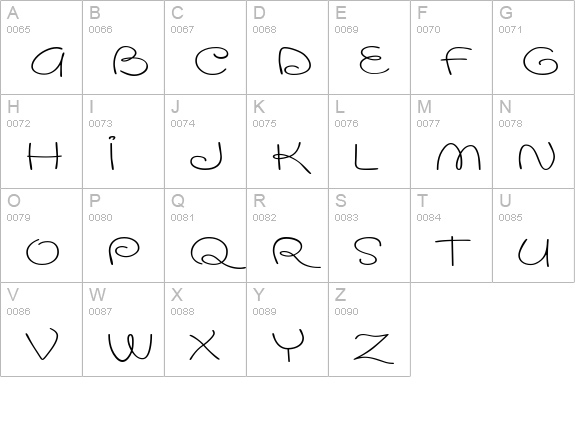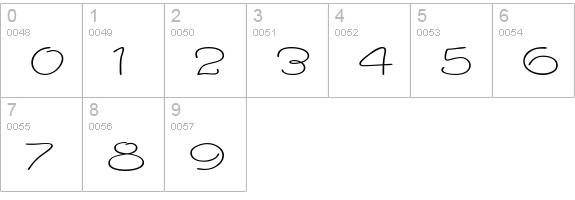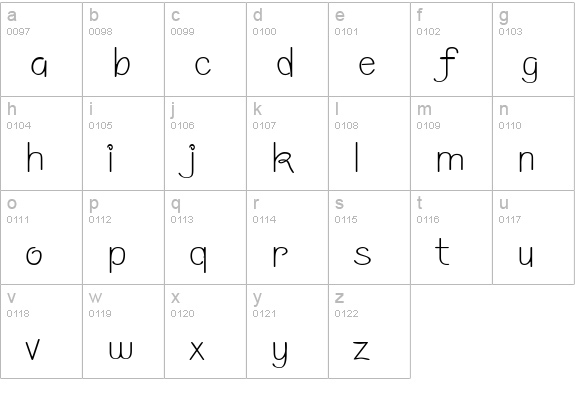
Morning Limerick BTN Exp Lt Font Details
Morning Limerick BTN Exp Lt font is a charming and elegant typeface that exudes sophistication and grace. With its elongated and slender letterforms, this font is perfect for adding a touch of class to any design project. Whether you are creating invitations, posters, or branding materials, Morning Limerick BTN Exp Lt will bring a sense of refinement to your work. What's even better is that Morning Limerick BTN Exp Lt font is available for free download at FontsMarket.com. This means you can easily access this exquisite font without any cost, making it a valuable addition to your font collection. Don't miss out on the opportunity to enhance your designs with the beauty of Morning Limerick BTN Exp Lt font today!